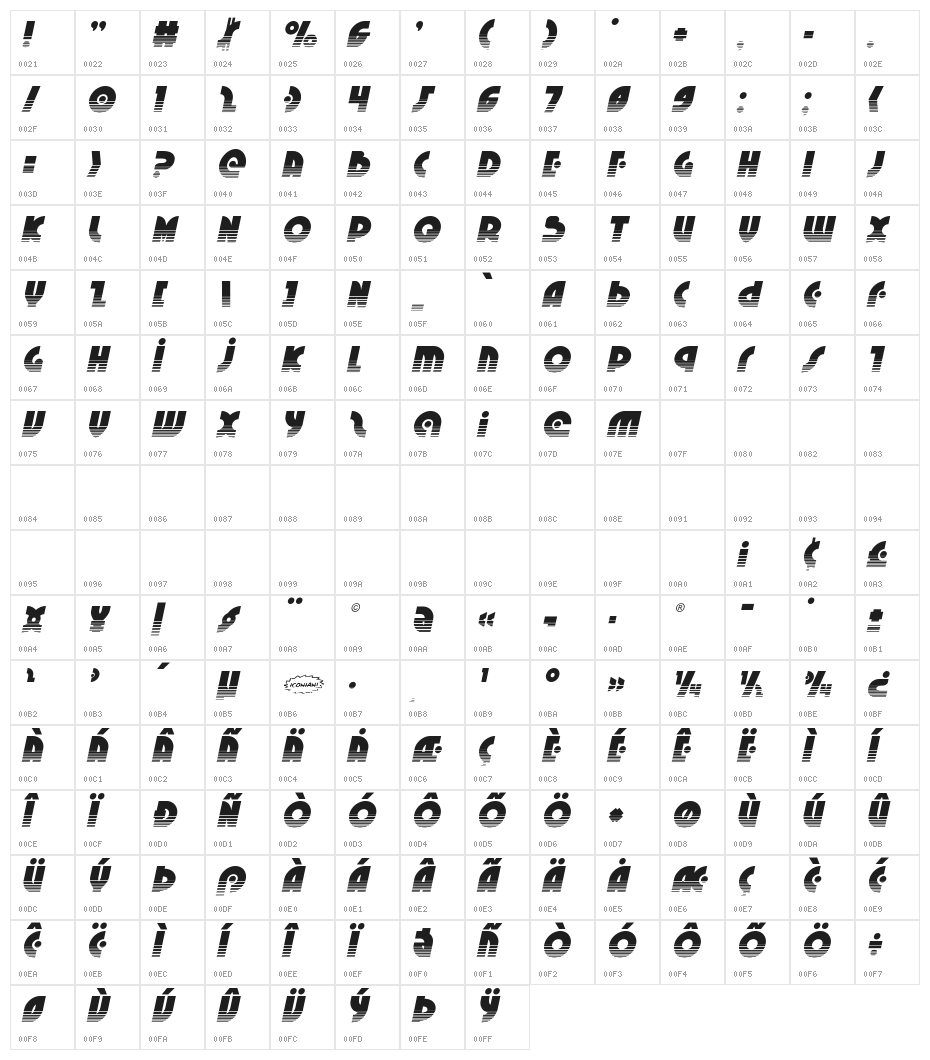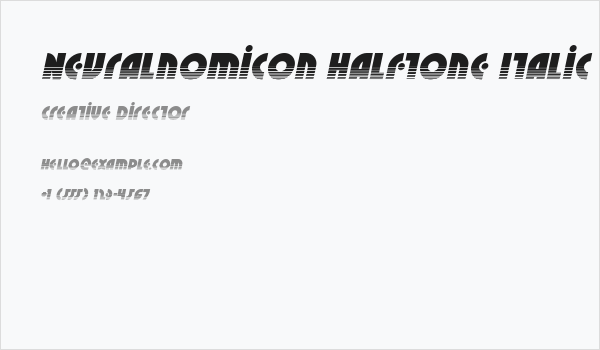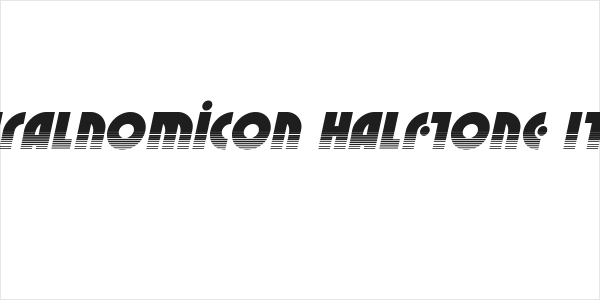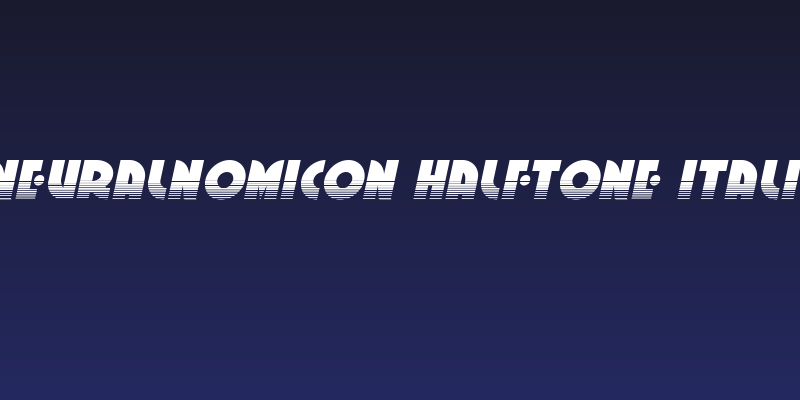
Neuralnomicon Halftone Italic Font
This font features a unique halftone effect, giving it a modern and dynamic appearance. The characters are bold and italicized, with a distinctive striped pattern that creates a sense of movement and depth. The design is highly stylized, with rounded edges and a futuristic aesthetic. The uppercase and lowercase letters maintain a consistent style, while the numerals and special characters integrate seamlessly into the overall design. This font is perfect for projects that require a bold and eye-catching typeface with a contemporary twist.
| Proposed Projects | Ideal for sci-fi themed posters, modern branding, and digital artwork. |